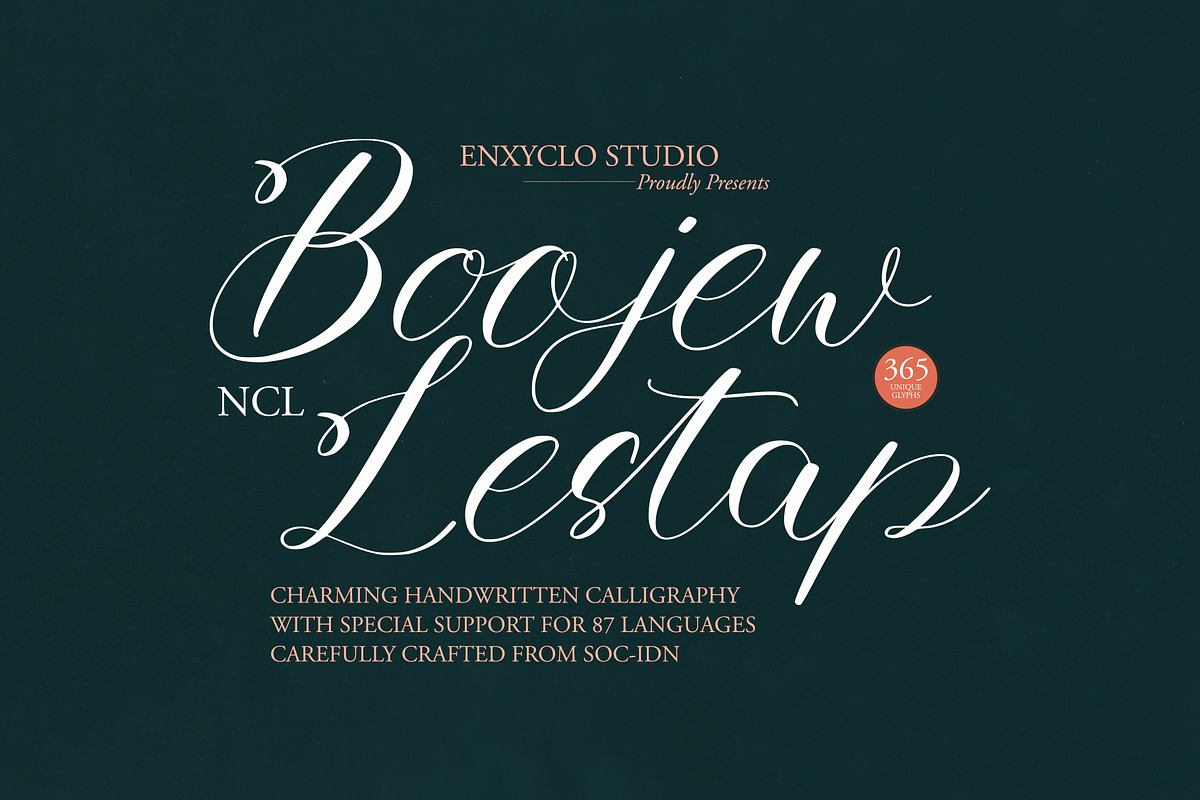
NCL BOOJEW LESTAP - Elegant Script Free Download
If you're searching for a stylish and refined script typeface to add elegance to your creative projects, NCL BOOJEW LESTAP - Elegant Script Free Download is exactly what you need. This beautifully crafted font features flowing lines, graceful curves, and a hand-lettered feel that brings sophistication and romance to any design.
Perfect for wedding invitations, luxury branding, social media graphics, and signature logos, this script typeface exudes charm and personality. It includes a full character set with swashes and alternates, giving you flexibility and flair in every letter you type.